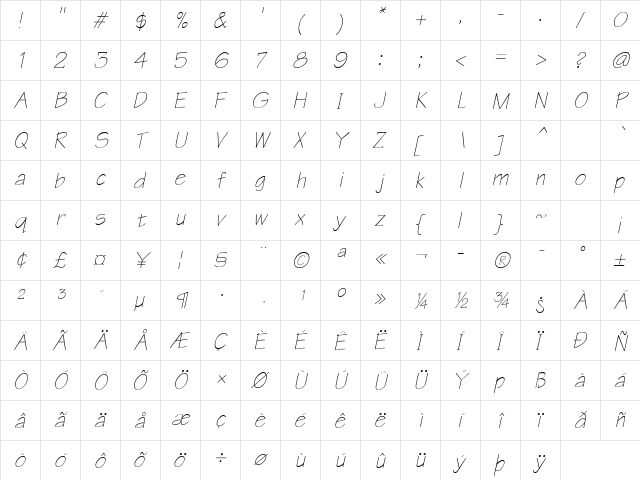
Write Oblique
Design Context for Write Typeface
Write offers clean, dependable letterforms without strong stylistic allegiance, making it a practical choice for designers who need flexibility. The slanted form adds forward momentum and visual energy.
Pro Tip: Use Write for emphasis, pull quotes, and subheadings where its slanted energy can add rhythm to the layout.